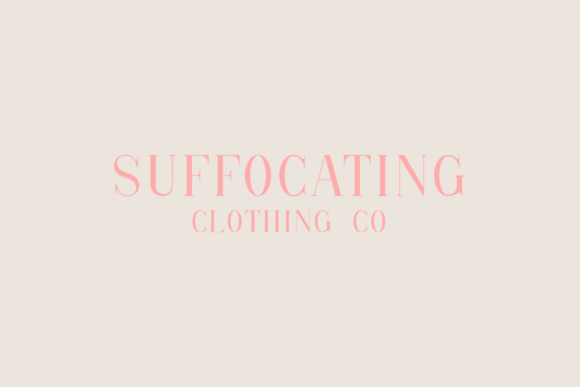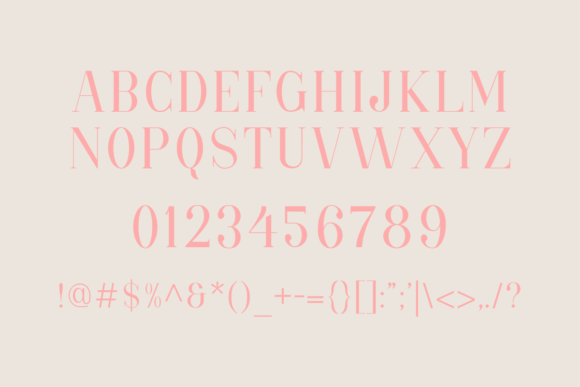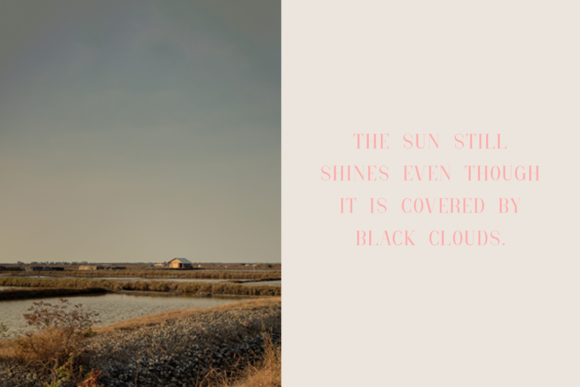
Introduction to Pati Font
Pati is a minimal and neat serif font.
It’s a great match to various sets of projects, so add it to your creative ideas and notice how it makes them stand out .
Key Features of Pati Font
Why Choose Pati Font?
Pati Font offers exceptional quality and versatility, making it a valuable addition to your design toolkit. Whether you’re creating for personal projects or commercial use, Pati Font delivers professional results.